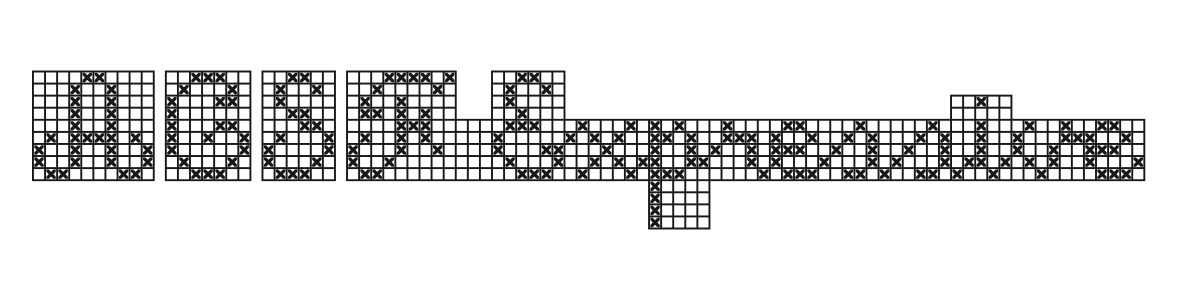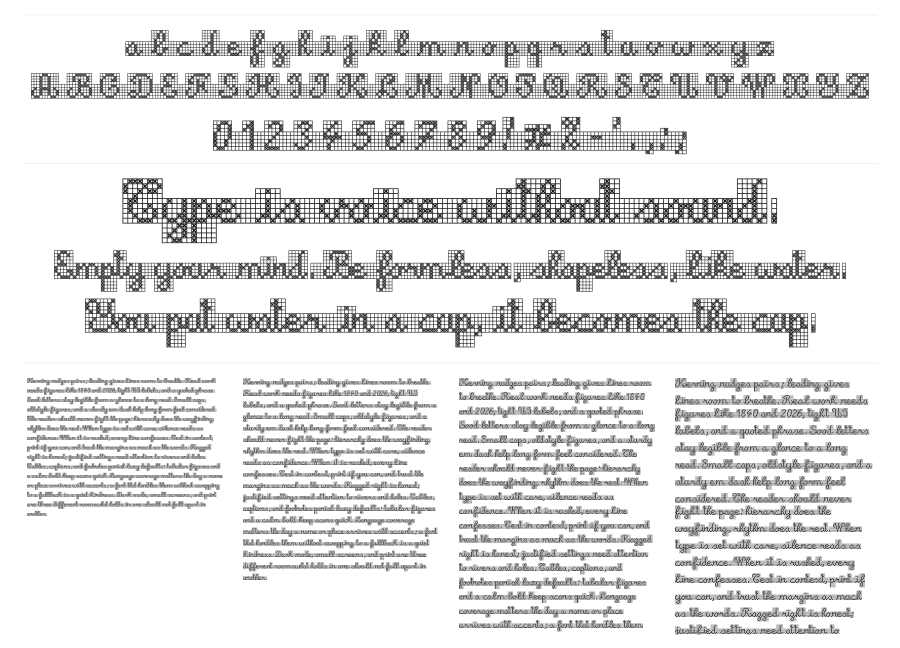
ACSF Expressive
ACSF Expressive is a cross-stitch font that renders cursive script as rows of embroidered X-marked squares on a grid, mimicking needlework charts published before 1930. OpenType ligatures link letters into a continuous flowing line, so the result reads like a hand-stitched sampler rather than digital type. There are two versions: one with the background grid visible, one without.